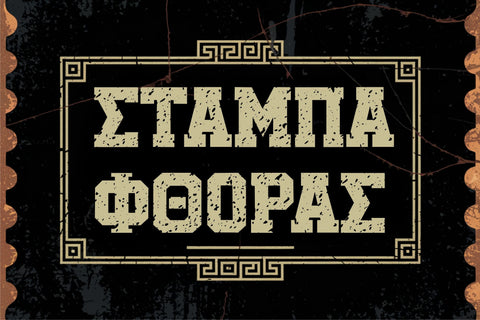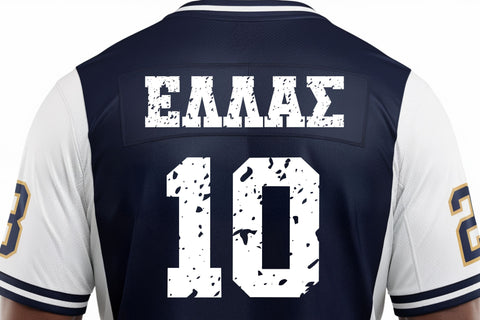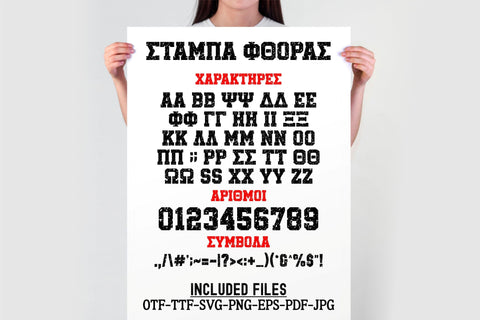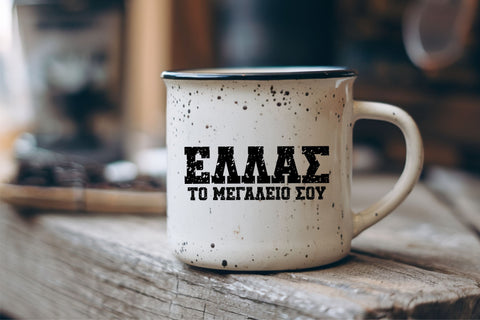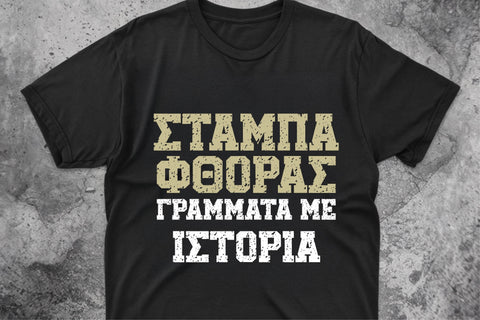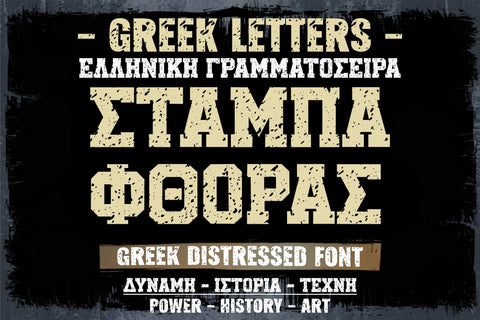
Greek Distressed Font | Greek Letters | Greek Alphabet
This bold Greek Letters Font brings ancient vibes and modern edge with a distressed, textured finish. Designed for standout projects, it includes the full Greek alphabet in OTF, TTF, SVG, DXF, EPS, PDF, AI, and CDR formats. Use it for t-shirts, signs, posters, digital projects, and more. The Greek Font SVG version works seamlessly with Cricut and cutting software. Inspired by strength, art, and history, this Greek Distressed Font gives your designs a bold, unforgettable personality. Perfect for everything from branding to decor!